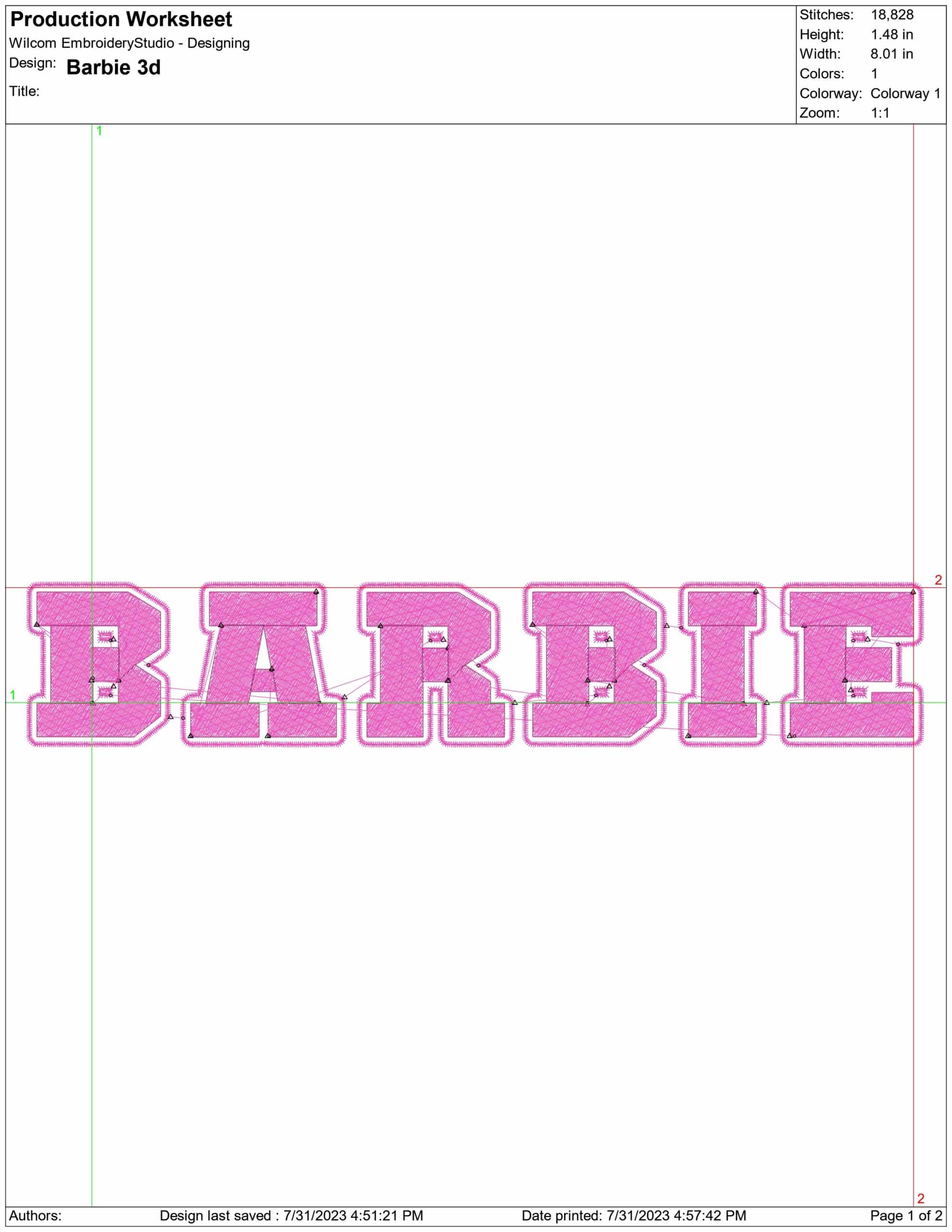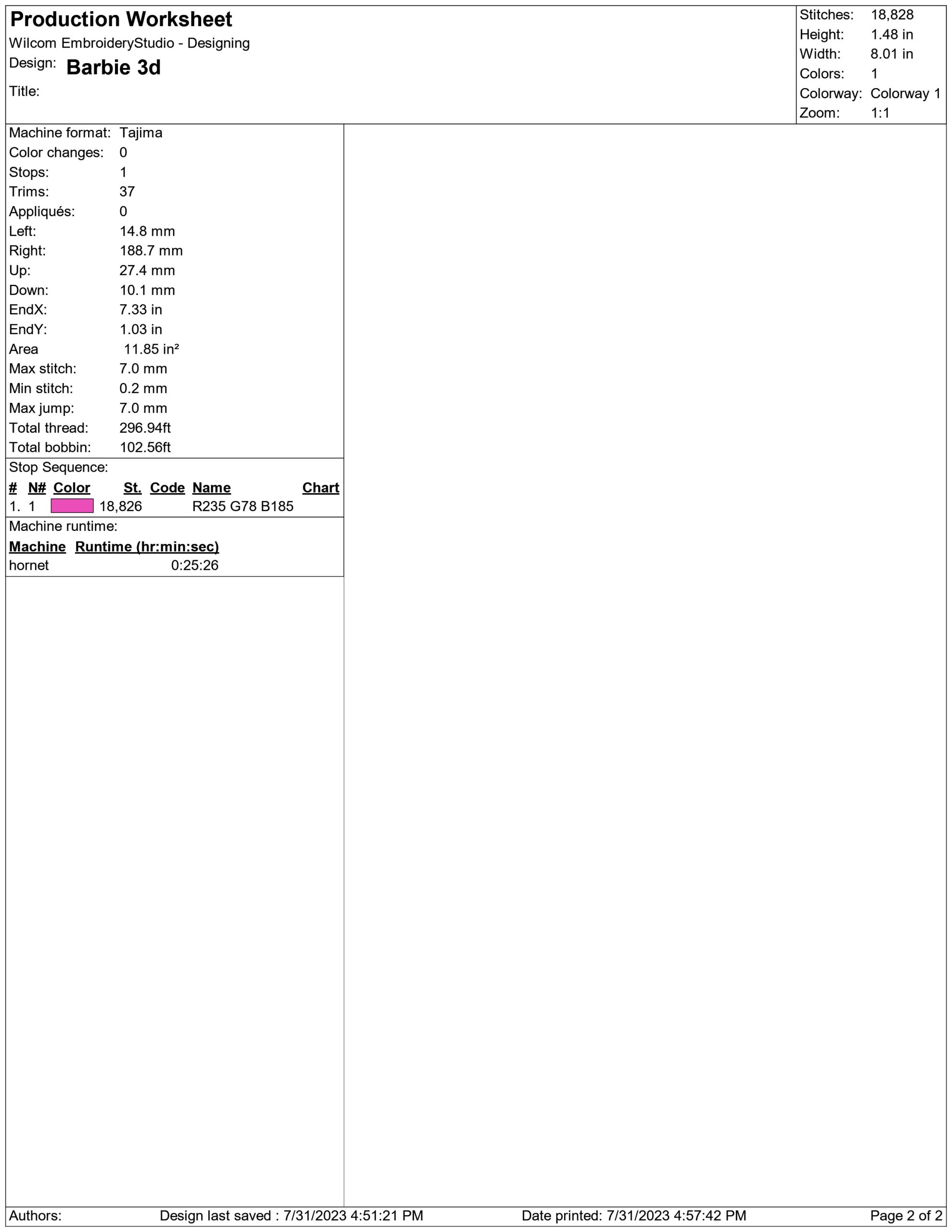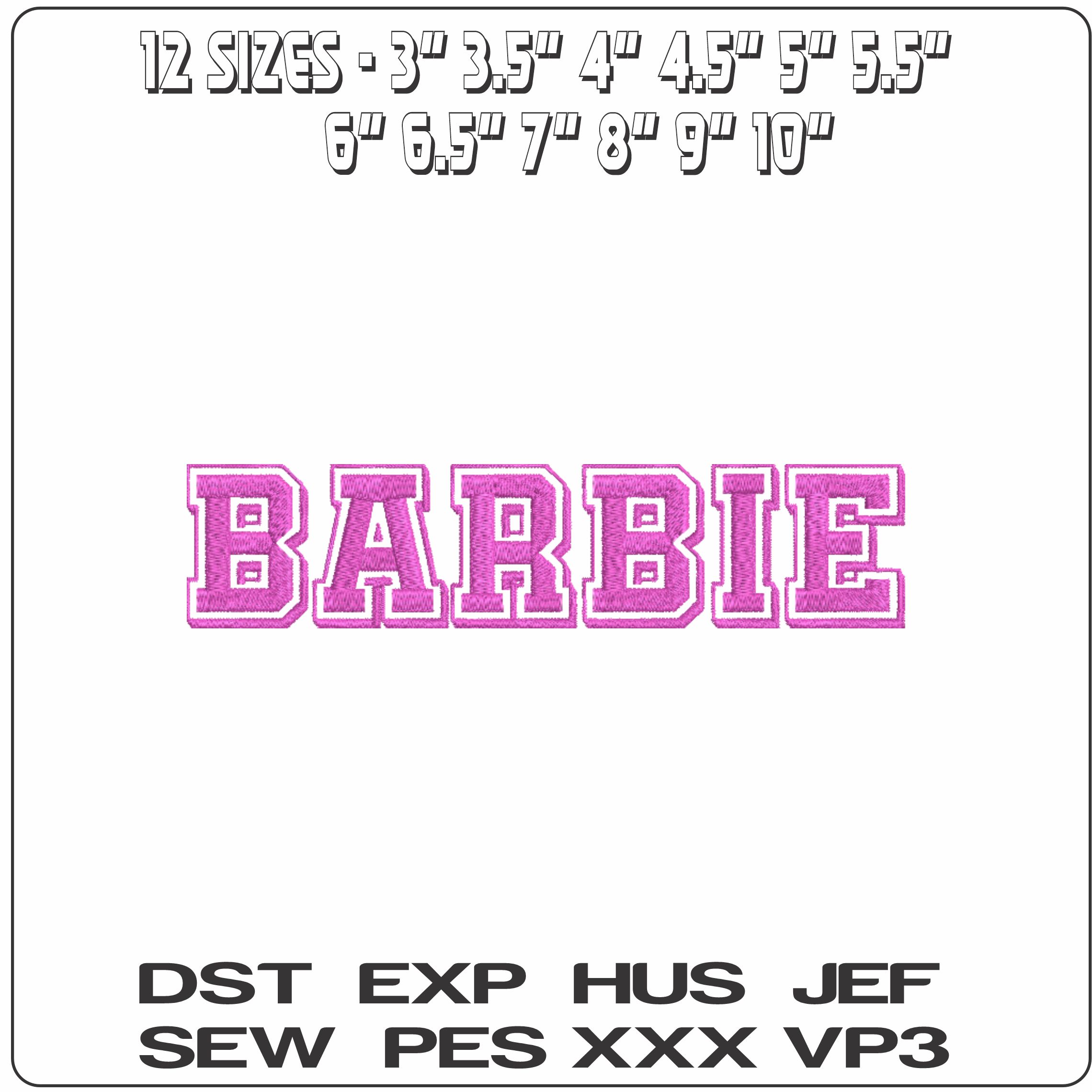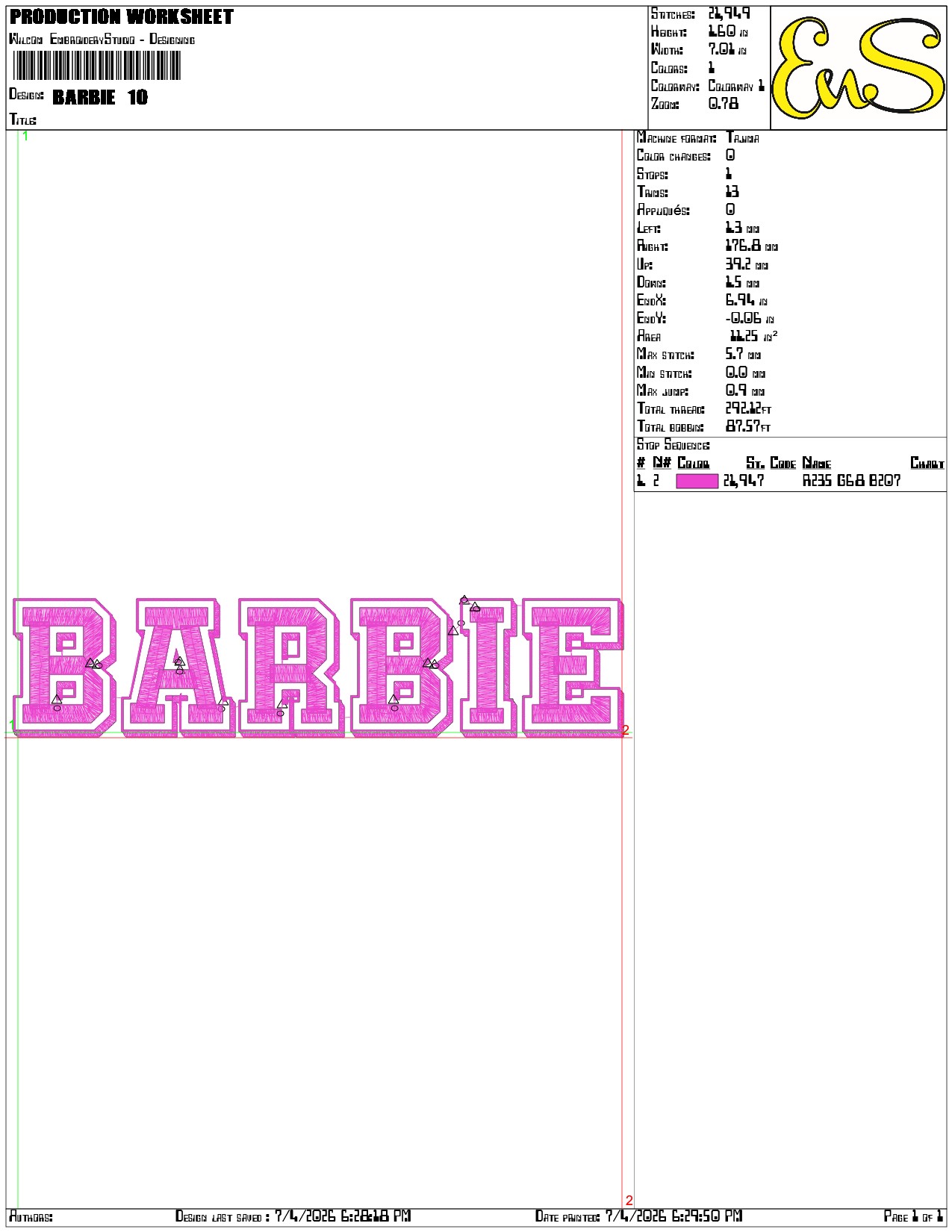
Bold pink-and-white BARBIE lettering gives jackets, sweatshirts and bags a clean logo look with standout varsity styling.
Bring bold pink style to a jacket, bag or bedroom accessory with this BARBIE text embroidery design. The word is stitched in chunky varsity-style block lettering with a neat outlined finish, giving it that unmistakable logo look in pink and white. It suits Barbie fans of all ages, from children wanting a playful name-on-it feel to women adding a bright pop-culture touch to everyday pieces.
Because the design is dense and heavily stitched, it has a solid, filled appearance that stands up well on stable fabrics. It looks especially good on sweatshirt fronts, denim jackets, canvas totes, pyjama bags and cushion covers where the bold letters can sit centre stage. With 12 size options from 3" to 10", it can read as a small accent or a full statement word without losing its clean outlined shape.